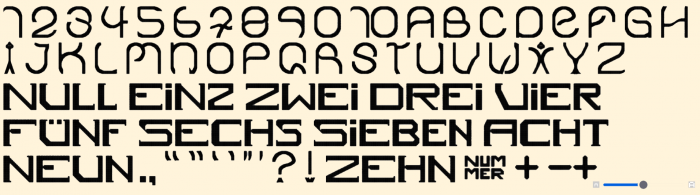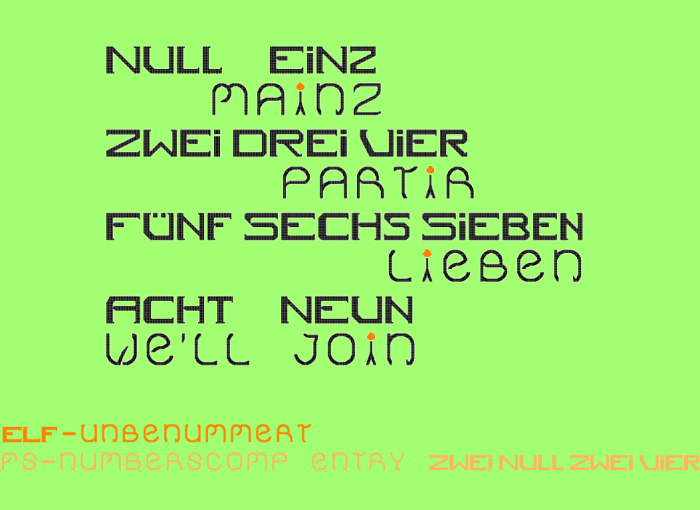
Added "ELF" on the "$" and "11" on the "L", after doing the Glyph Sampler but ready for the Display Sampler. Avoided "zweitausendvierundzwanzig" on the "&" ;)
I like the serif at the end of “3”.
Sorry, but I think one (Eins) is misspelled.
apparently it is either ein or eins not einz